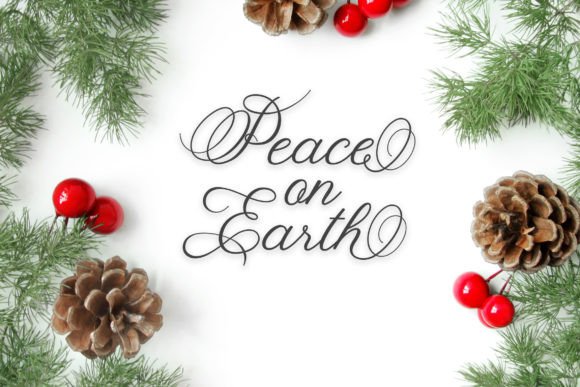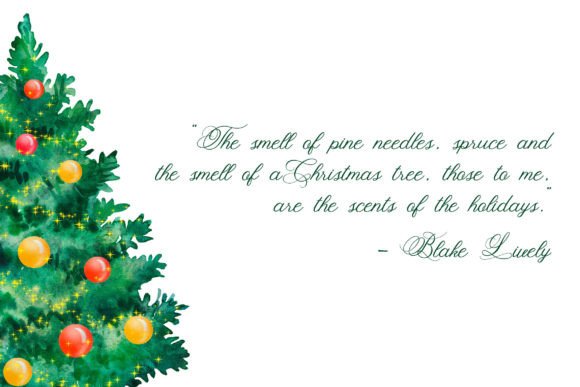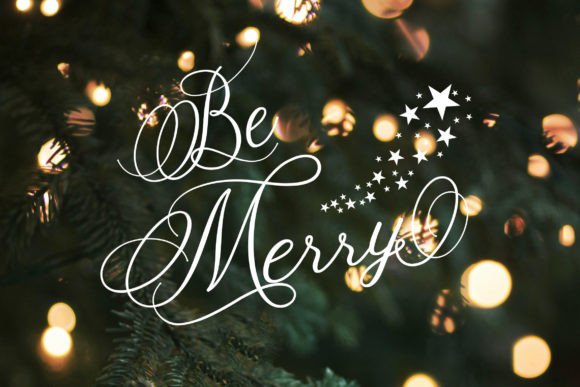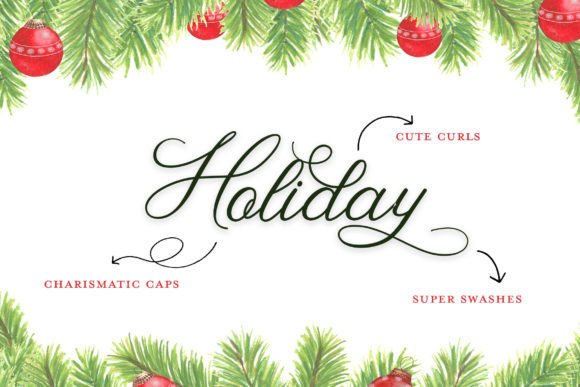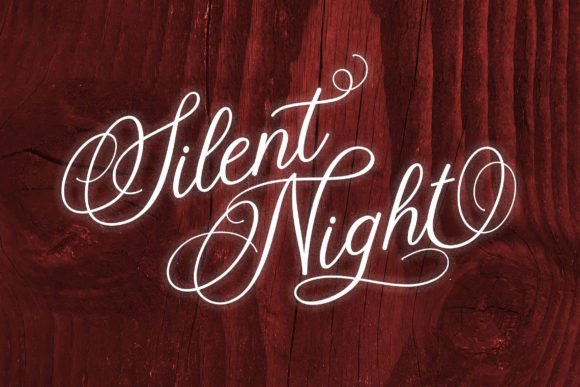
White Christmas Font
About White Christmas Font
The font described is a cute, swirly, and swashy holiday font that adds a touch of flair and style to your holiday-themed projects. With its extra characters and decorative elements, it’s a fun choice for creating festive Holiday cards, adding a special touch to handmade signs, and helping you celebrate Christmas in a truly magical and stylish way.
The charm of this font lies in its playful and decorative features, including swirly lines, swashes, and extra characters. These elements allow you to infuse your holiday designs with a sense of joy and celebration, making them feel special and magical. The font is designed to add a little extra flair and style to your projects, creating a festive atmosphere that captures the spirit of the holiday season.
One of the notable features of this font is its PUA encoding, which provides easy access to all the glyphs and swashes. This feature allows you to explore and experiment with various design elements, giving you the flexibility to customize your holiday-themed compositions and create unique and visually striking typography.
This font is perfect for a wide range of holiday-related design projects. Whether you’re creating personalized Holiday cards that radiate warmth and joy, crafting handmade signs for festive events, designing seasonal decorations, or adding a touch of magic to any holiday-themed design, this font offers the decorative elements and style needed to make your creations truly special.
Incorporating this festive font into your holiday projects will likely result in outcomes that are not only cute and stylish but also full of charm and festive spirit. Its decorative elements and swirly, swashy style make it an excellent choice for creating designs that capture the magic and joy of the holiday season. Embrace this magical and stylish holiday font in your next project, and watch as it adds a touch of flair and celebration to your typography and overall design, making your holiday creations truly memorable and enchanting.